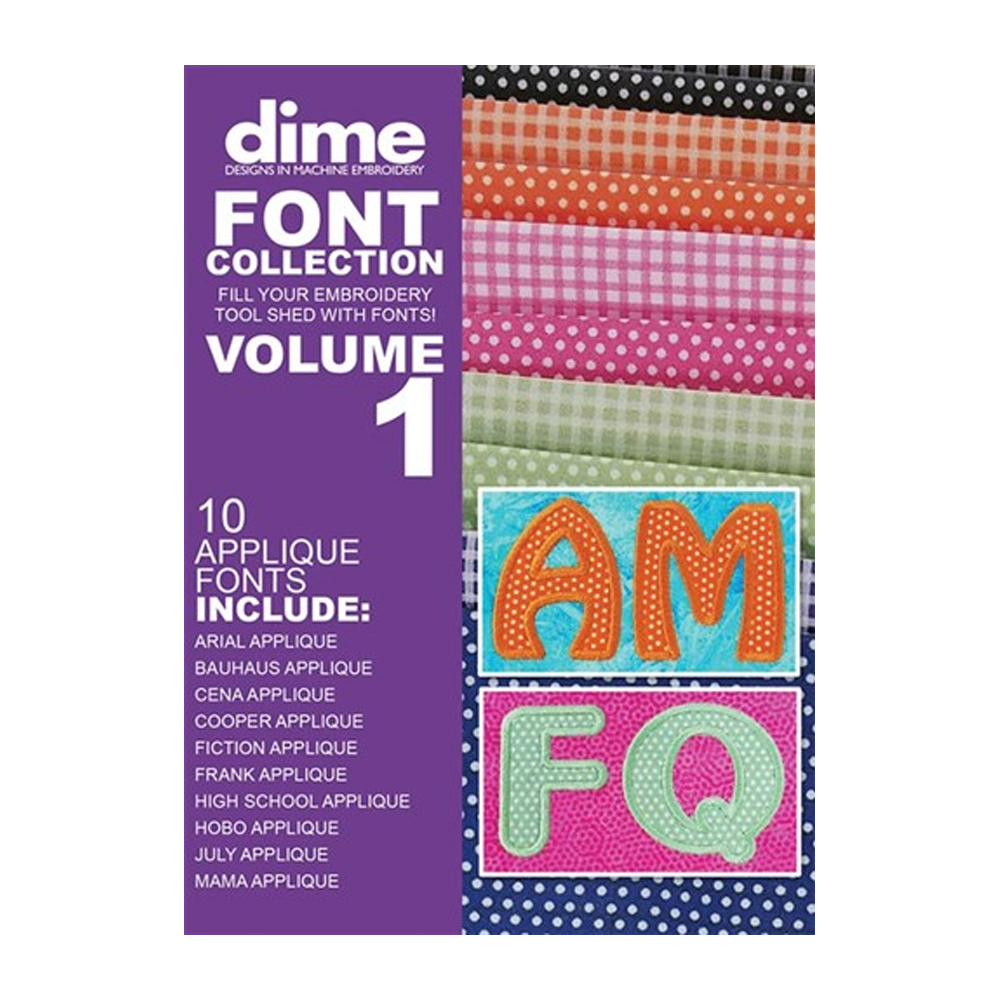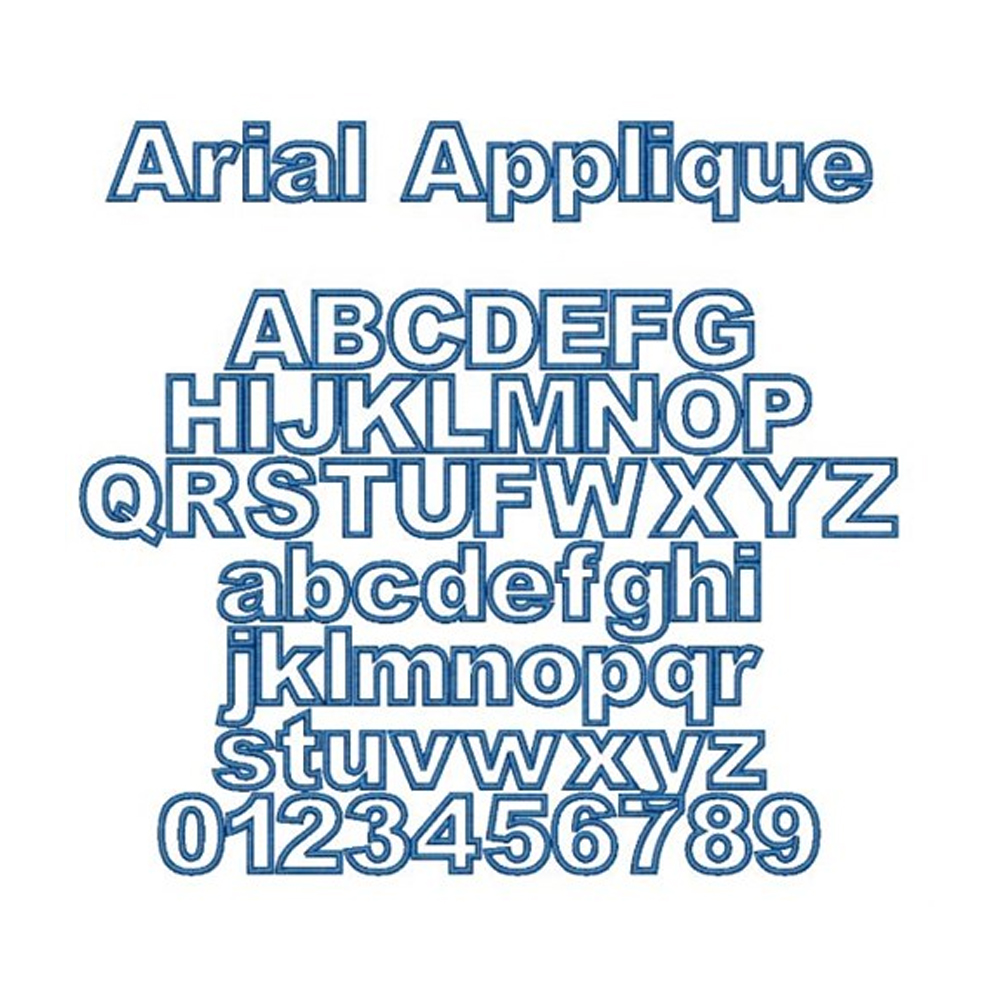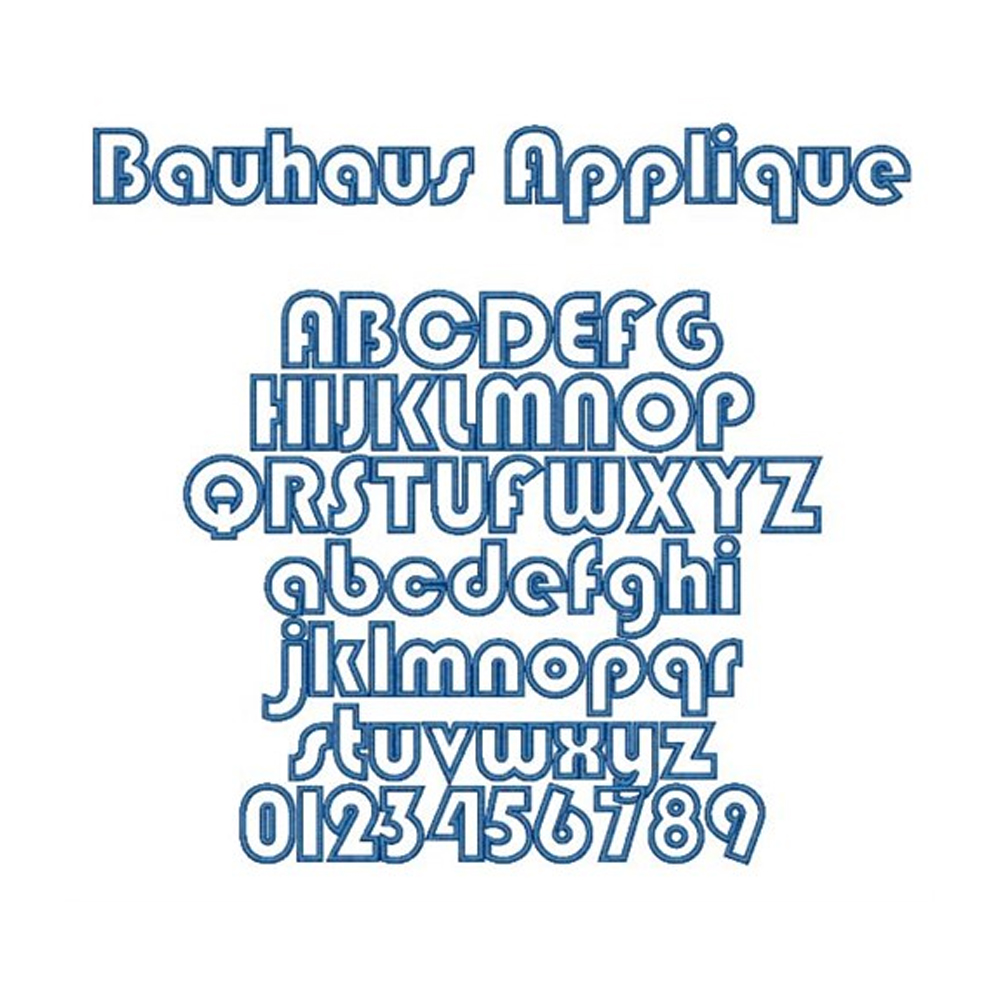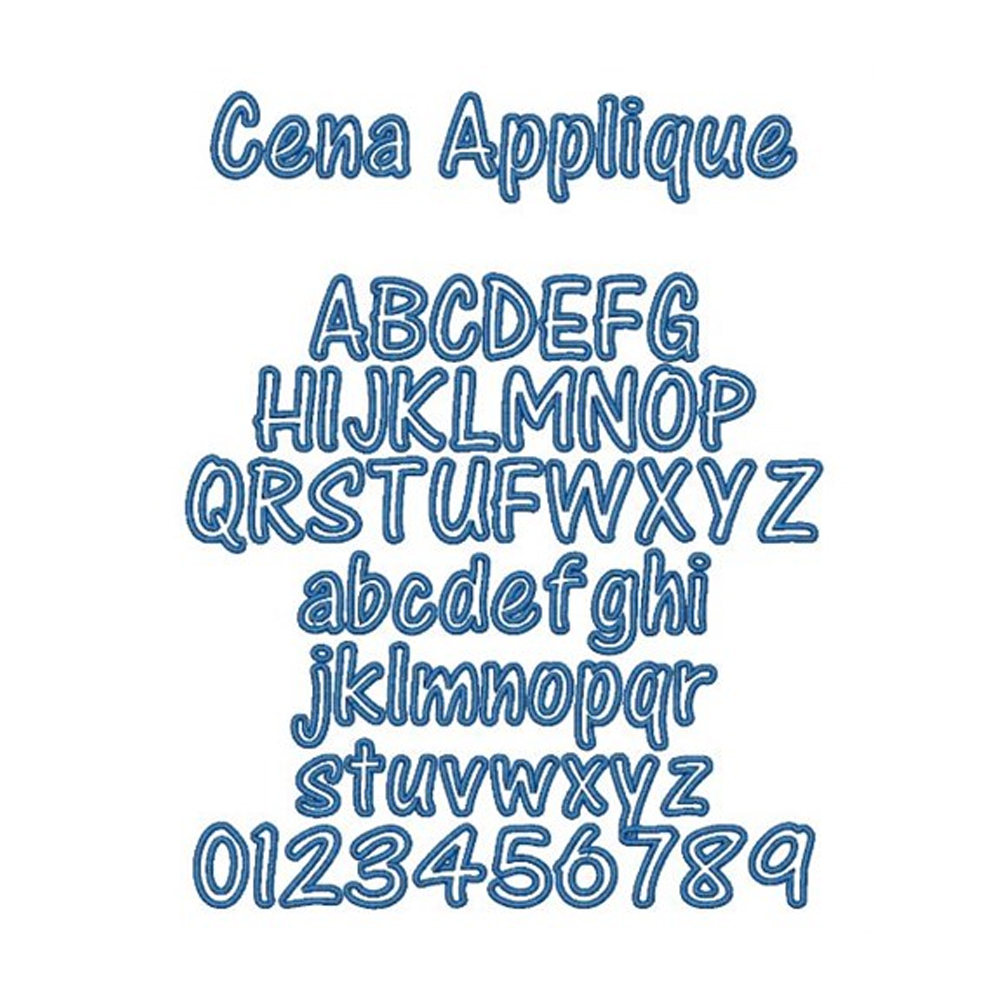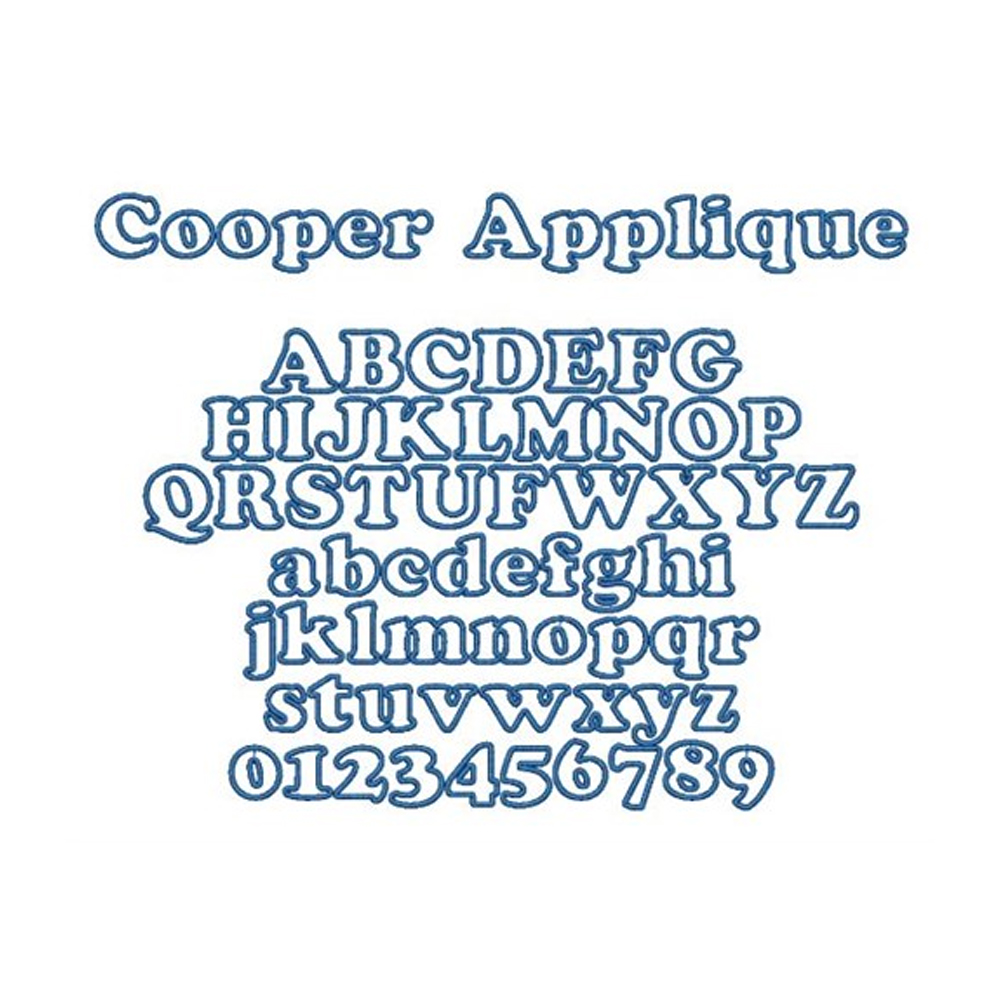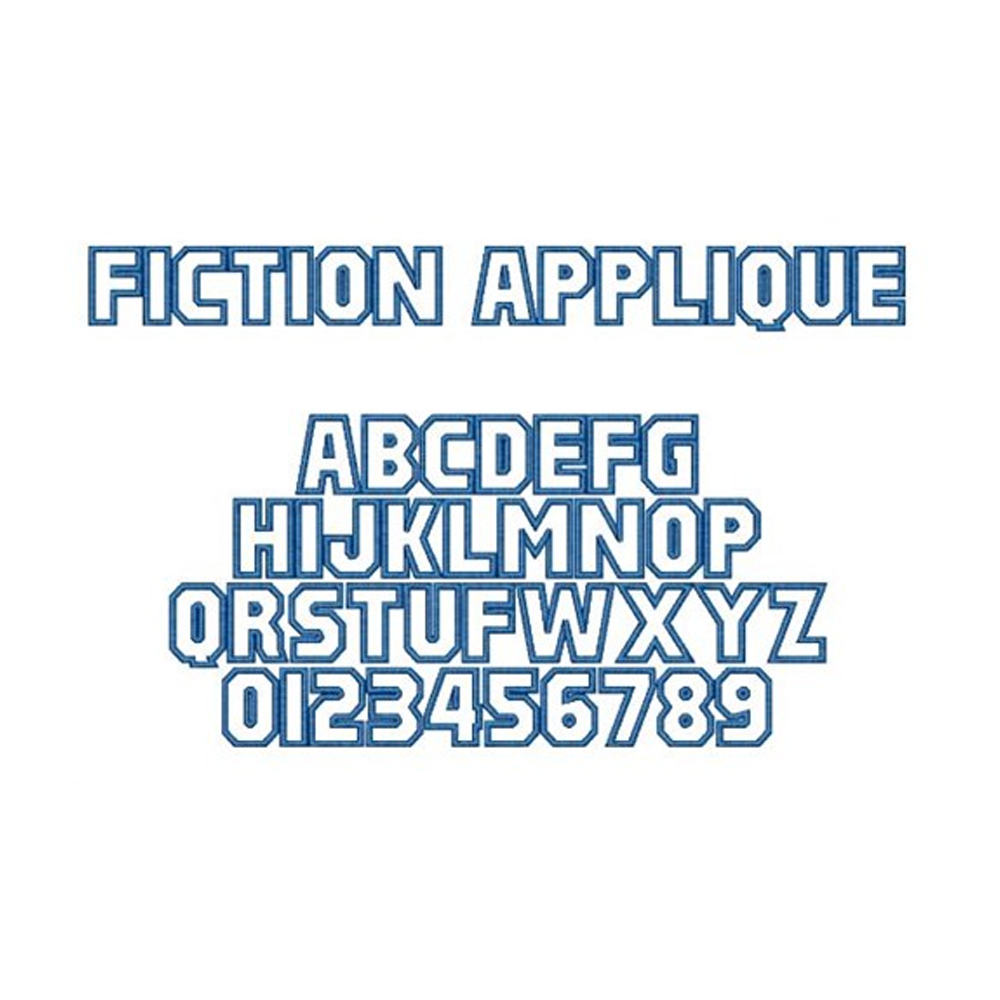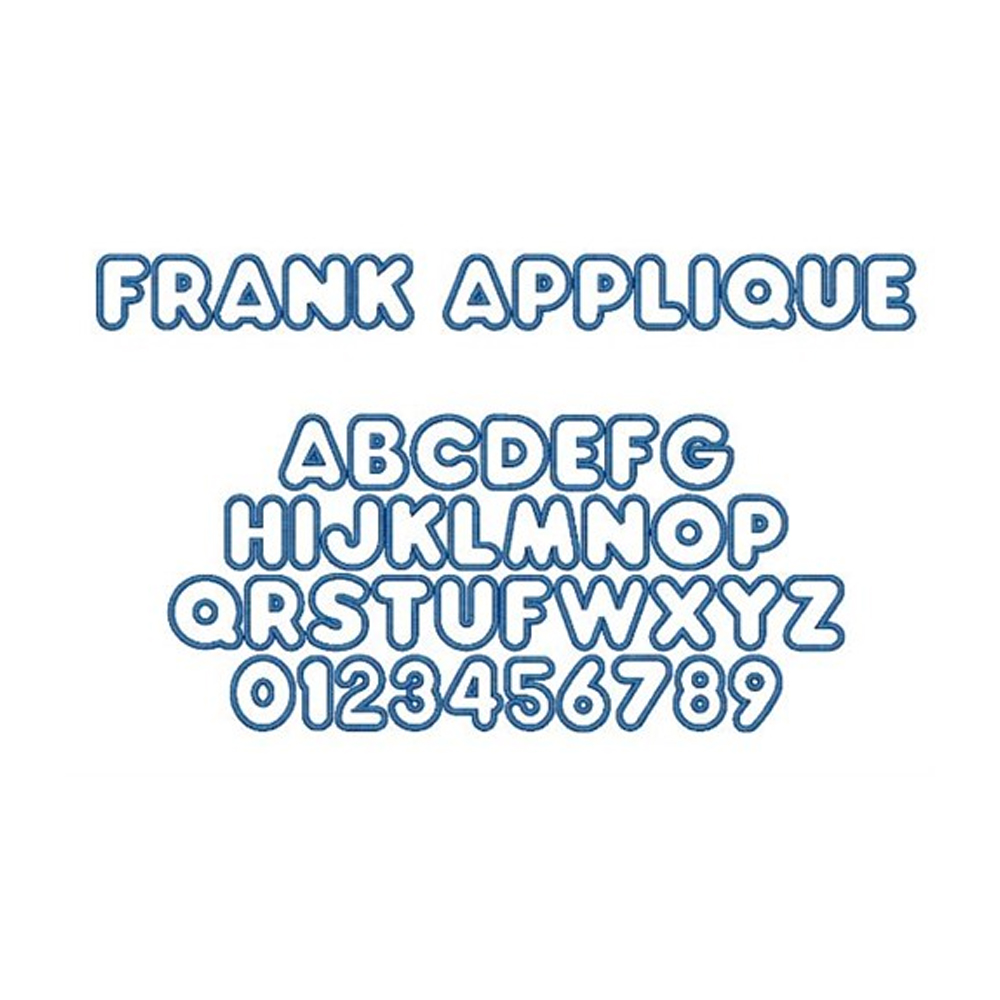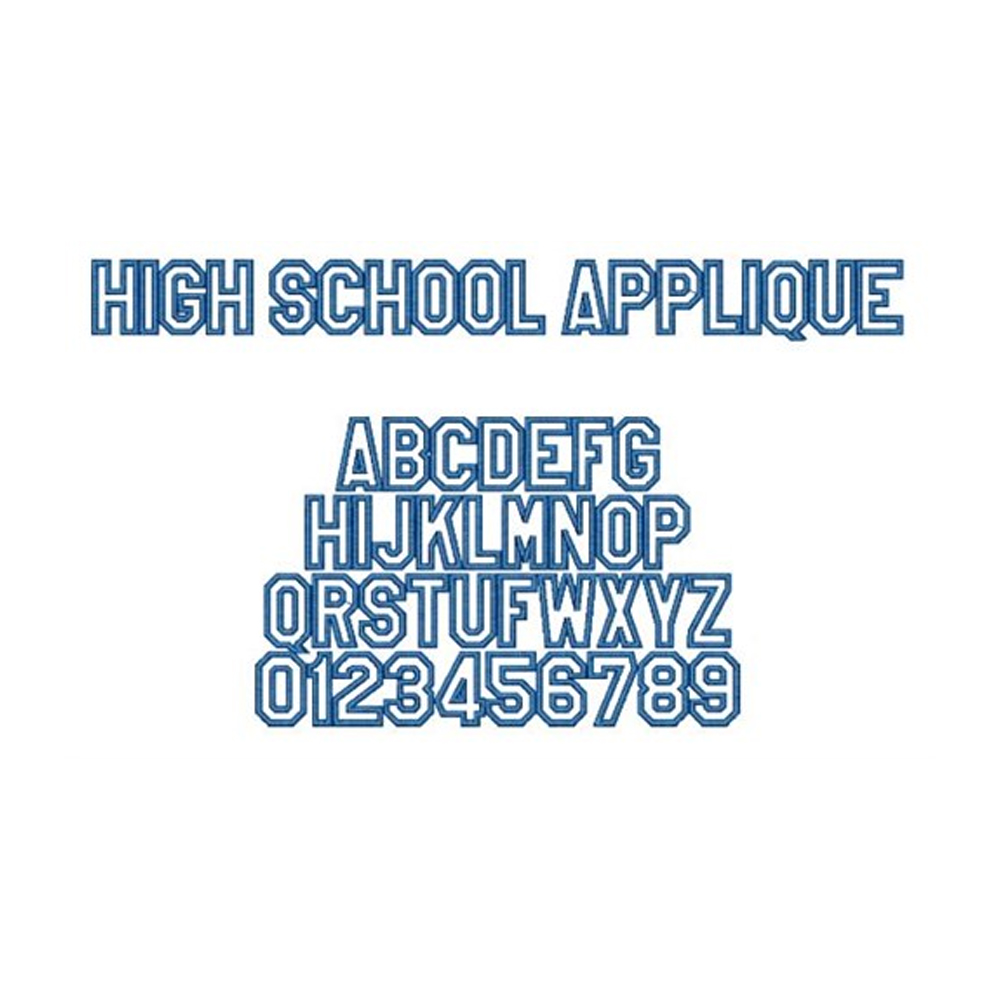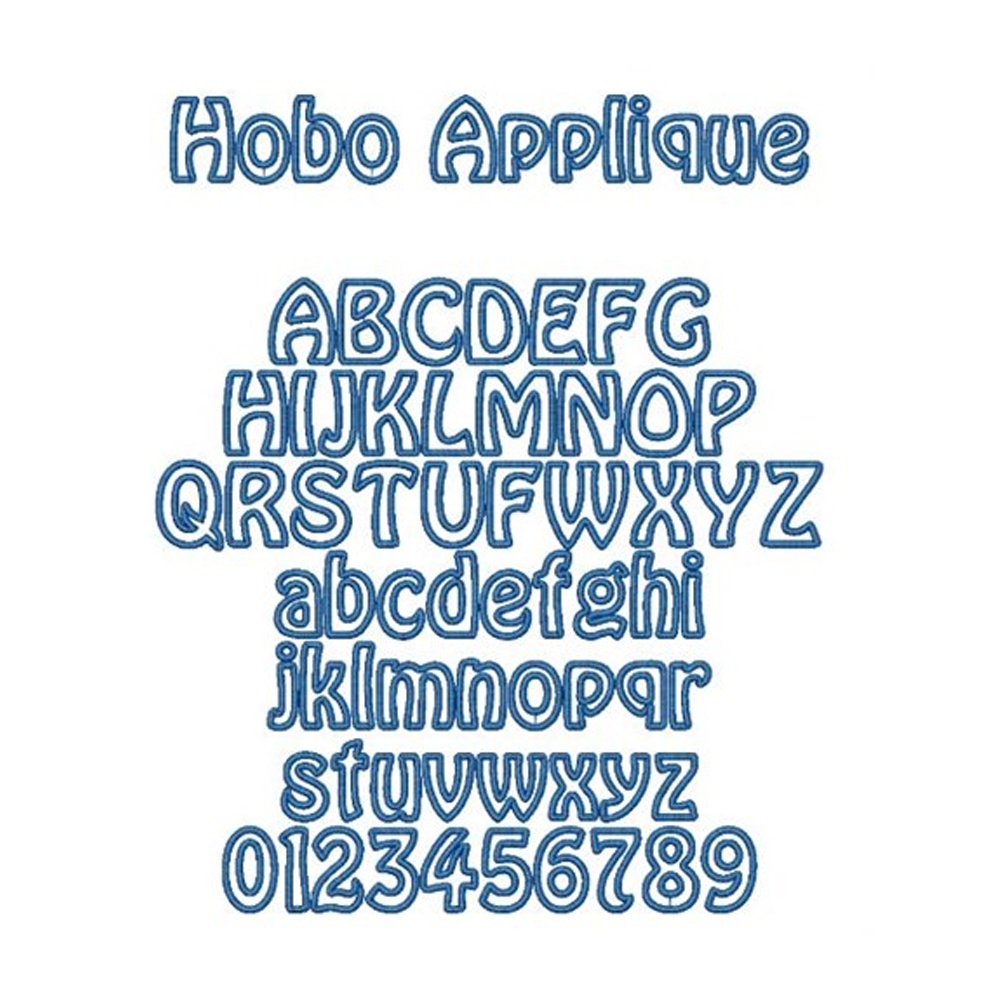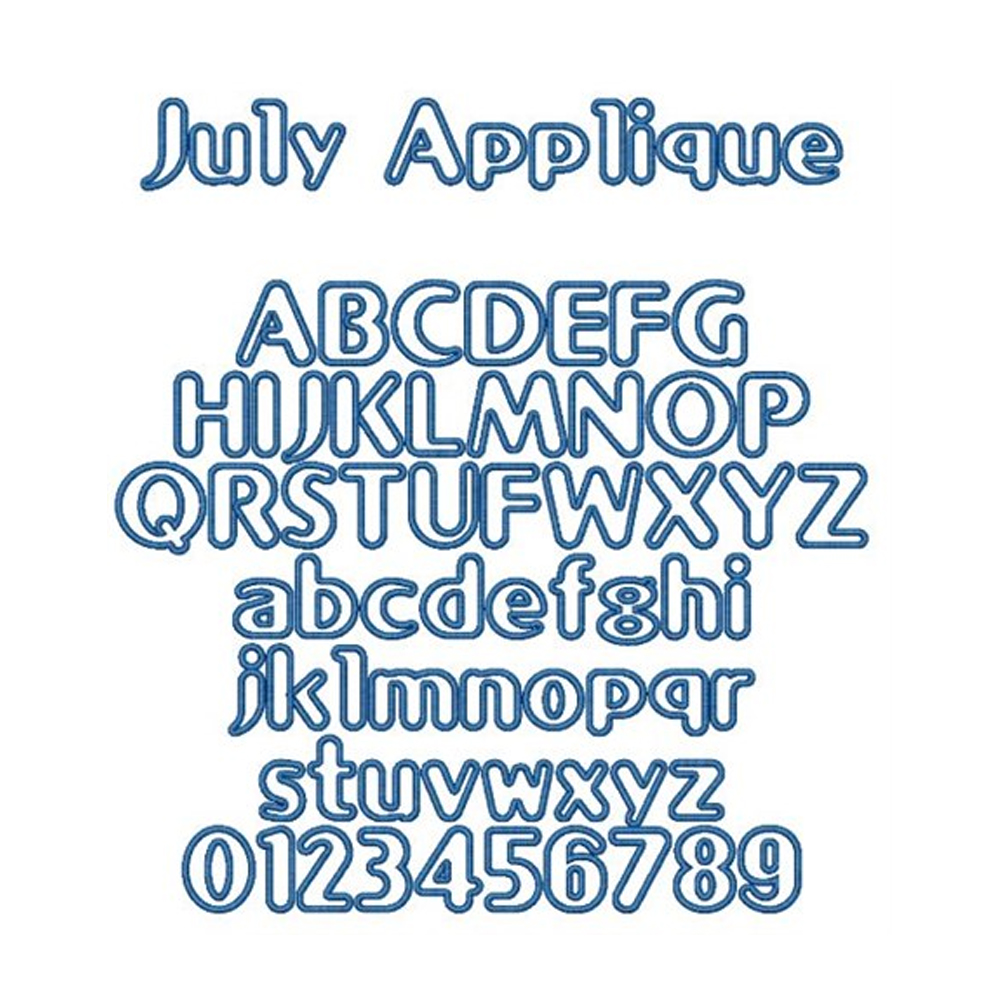
Font Collection Volume 1: Applique Fonts by Designs in Machine Embroidery DIME - DOWNLOAD ONLY
Create beautiful applique with these 10 open fonts. Add your own flare to fill in these classic fonts.
Includes these fonts:
- Arial Applique
- Bauhaus Applique
- Cena Applique
- Cooper Applique
- Fiction Applique
- Frank Applique
- High School Applique
- Hobo Applique
- July Applique
- Mama Applique